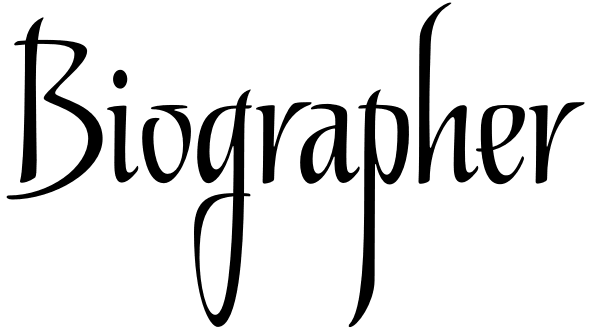
Biographer
Biographer is a mild upright script drawn by Angel Koziupa, with Alejandro Paul art directing and producing. Elegant but quite reminiscent of roman forms and proportions, Biographer keeps the calligraphy mostly toned down, but its ascenders and...